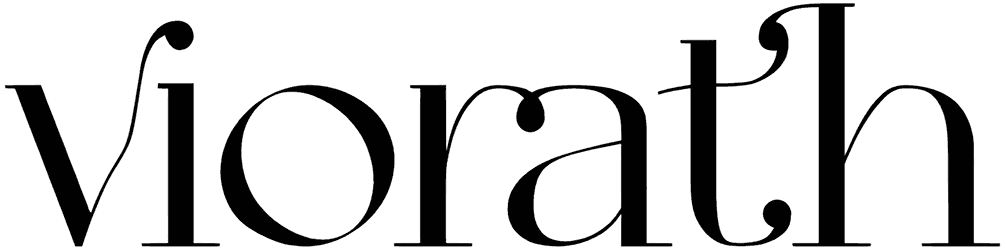
Viorath Font
For taking your typography to the next level with a traditional font featuring clean, reliable, and assertive letters, carefully look around this luxury serif font.
Viorath, in luxurious and faithful furnishings, can satisfy the audience not only for the titles but also for the main text or anywhere calling for an authentic design. Just give this luxury font a test to see how it plays out!
Designed by: Dickof Zapatista